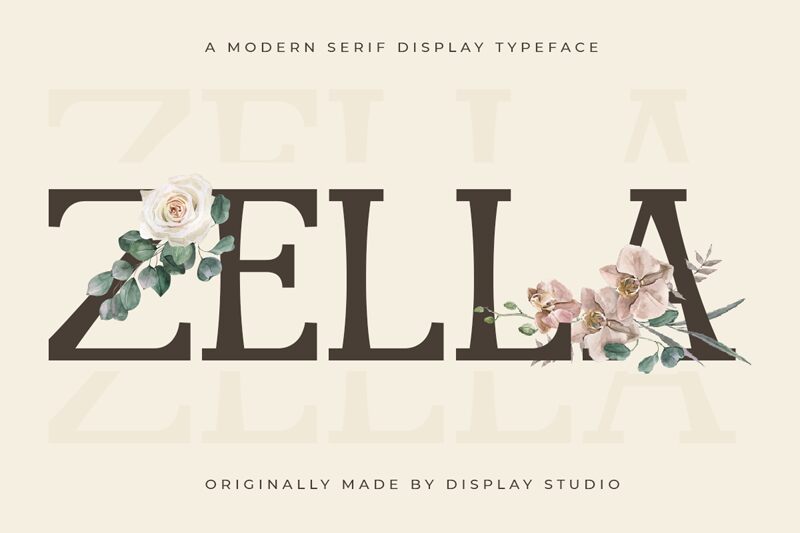
Zella
Zella, the captivating creation of Display Studio, is a unique and versatile serif font that adds a touch of elegance to any project. With its semi-light weight and original style, Zella is perfect for creating eye-catching headlines, logos, and invitations that demand attention. Its timeless appeal makes it suitable for various projects ranging from high-end fashion magazines to wedding invitations. Whether you're looking to create a vintage-inspired poster or adding sophistication to your website's typography, Zella's striking curves and clean lines will take your design game to the next level.